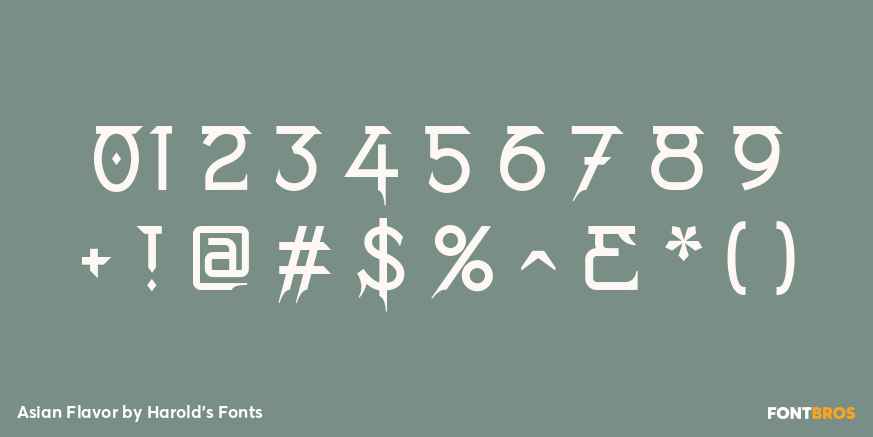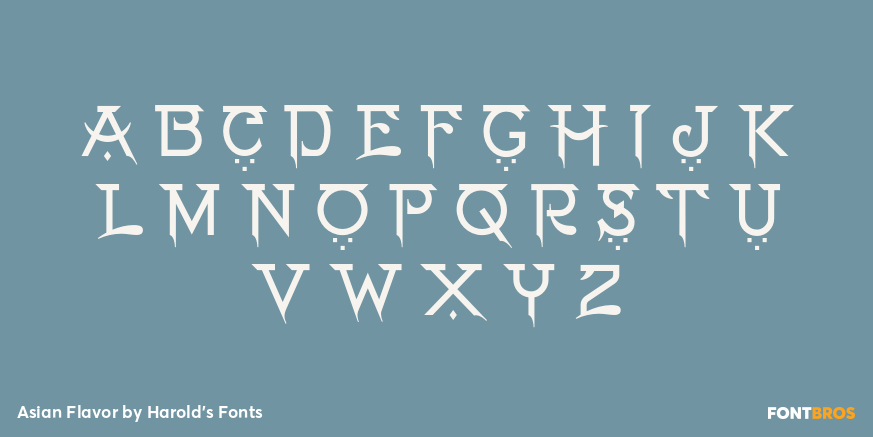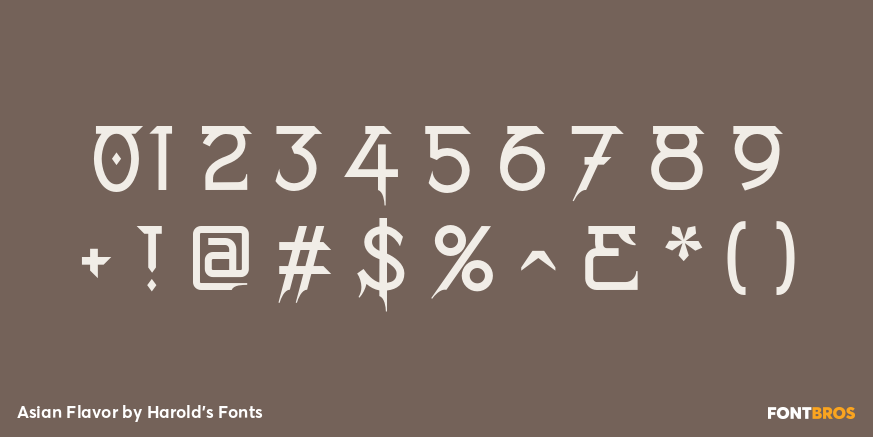
Asian Flavor
Font Family by Harold's Fonts
Asian Flavor is a pan-Asian pastiche. Borrowing from multiple Asian scripts?dots from the Middle East, bars from South Asia, strokes from the Far East'this font attempts to suggest Asian languages while still writing in the Latin alphabet. About as authentically "Asian" as my homemade lettuce wraps with some ginger, rice vinegar, soy sauce and sesame oil: tasty and accessible but not really Asian.
Asian Flavor was inspired by hand-lettered signs from the 1930s from at the American Museum of Natural History.